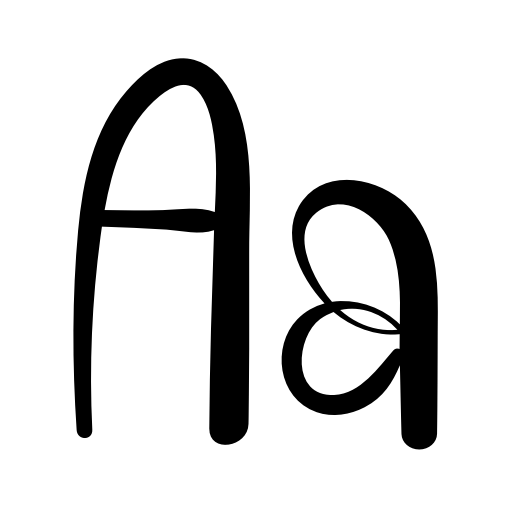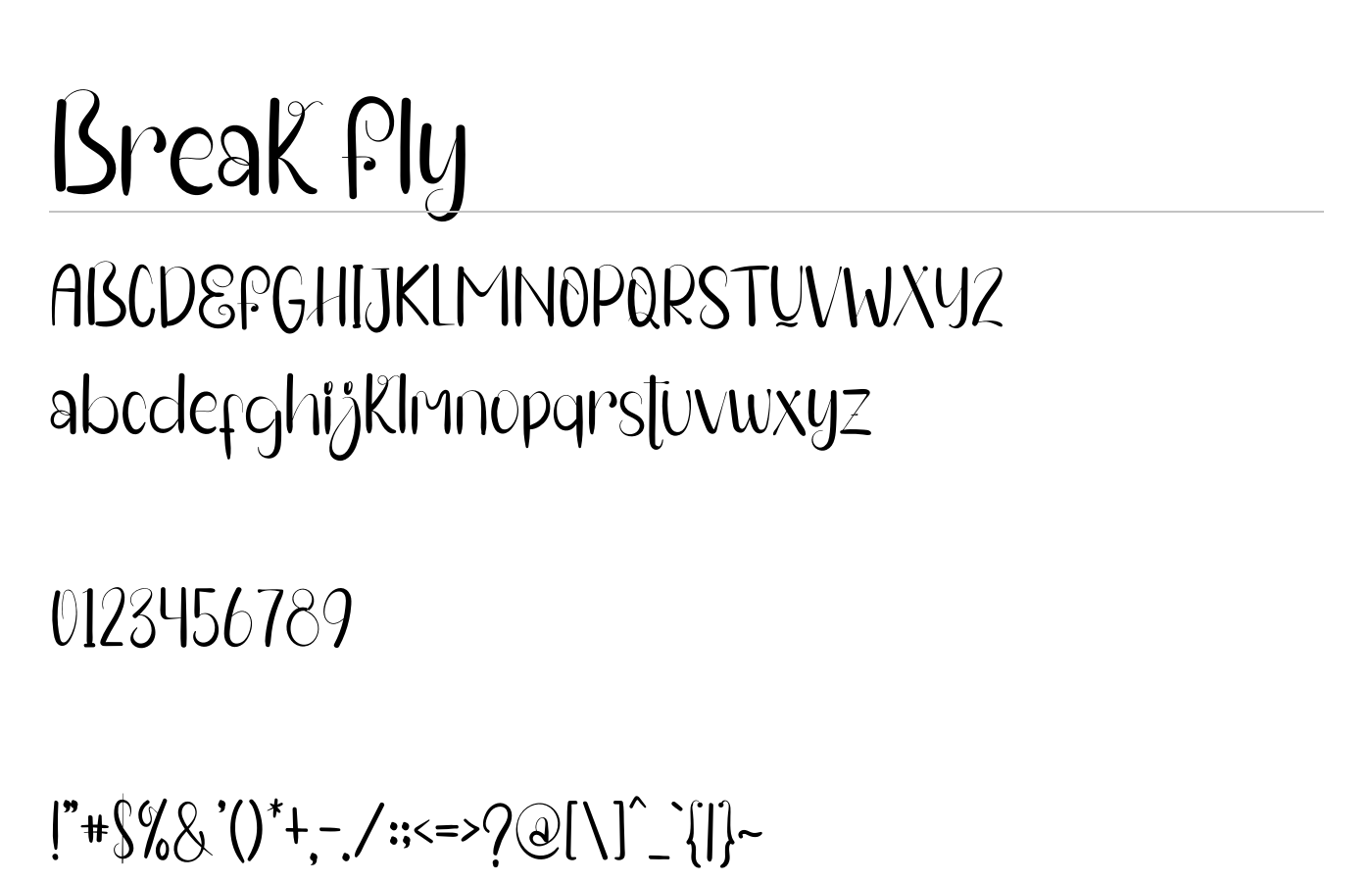
Break Fly is a whimsical, narrow handwritten font with playful, uneven strokes and charming decorative curls on select letters, giving it a lively and artistic feel. Ideal for creative projects, casual branding, or invitations, it brings a friendly, informal personality that stands out with its unique, quirky character shapes.
Break Fly Font